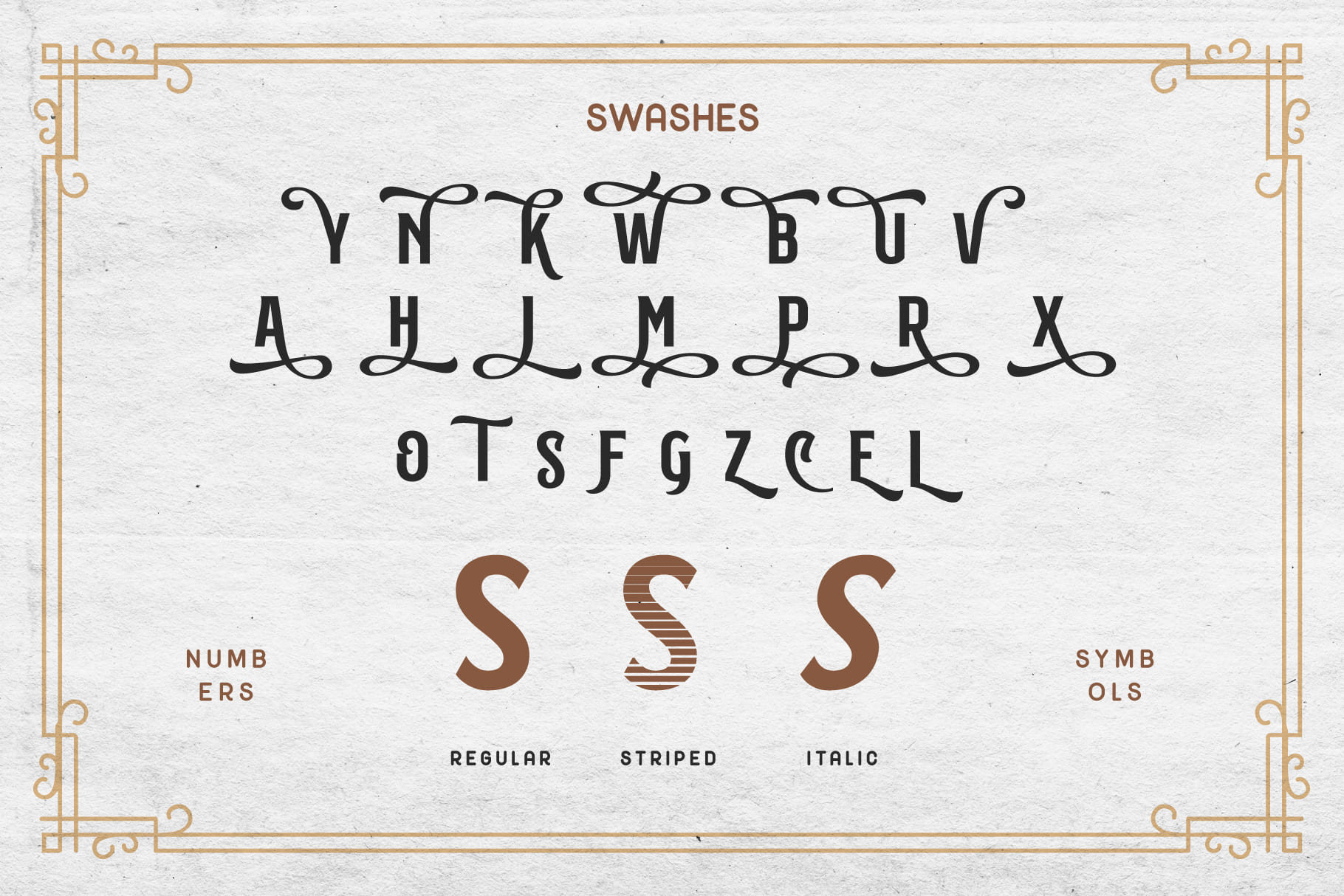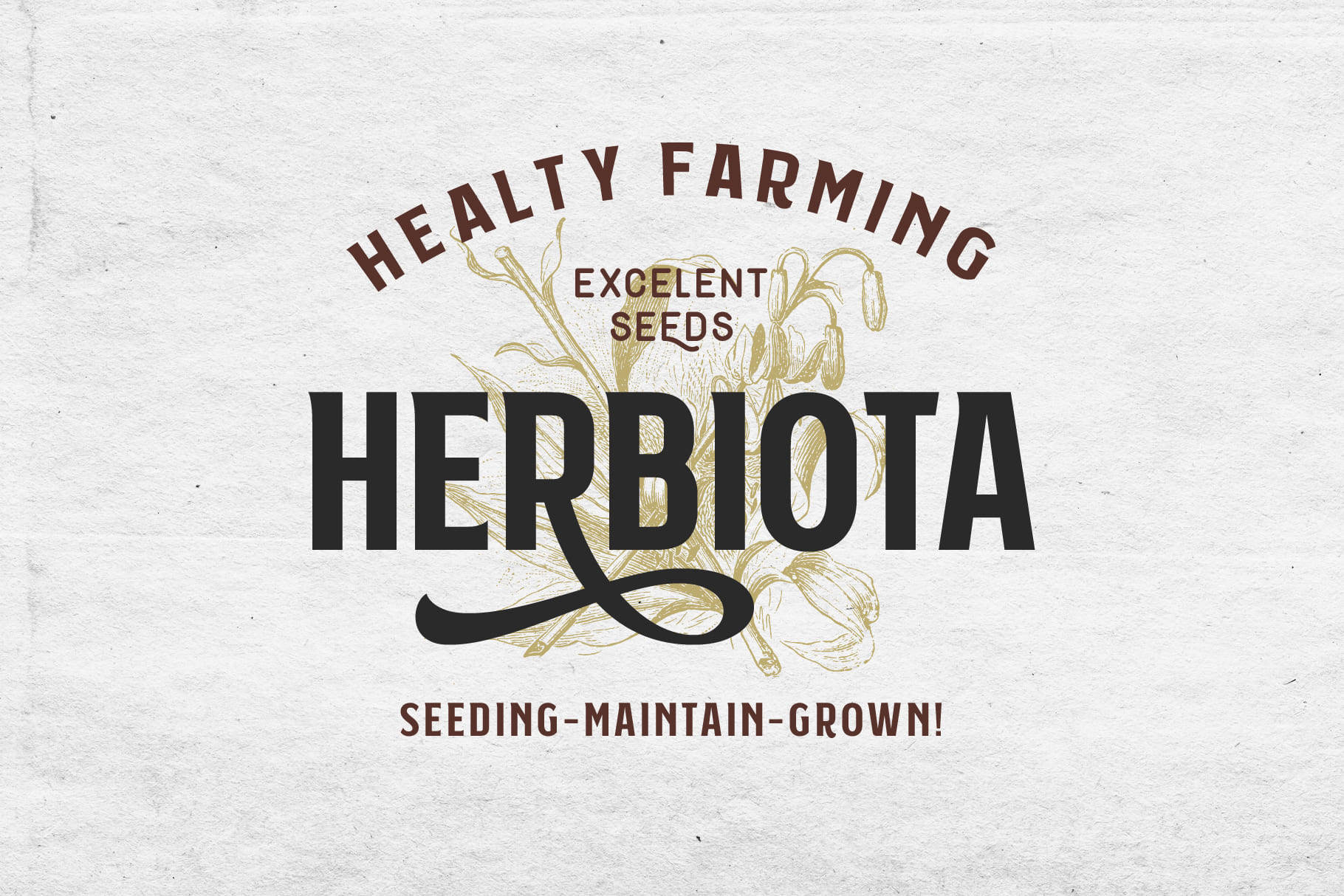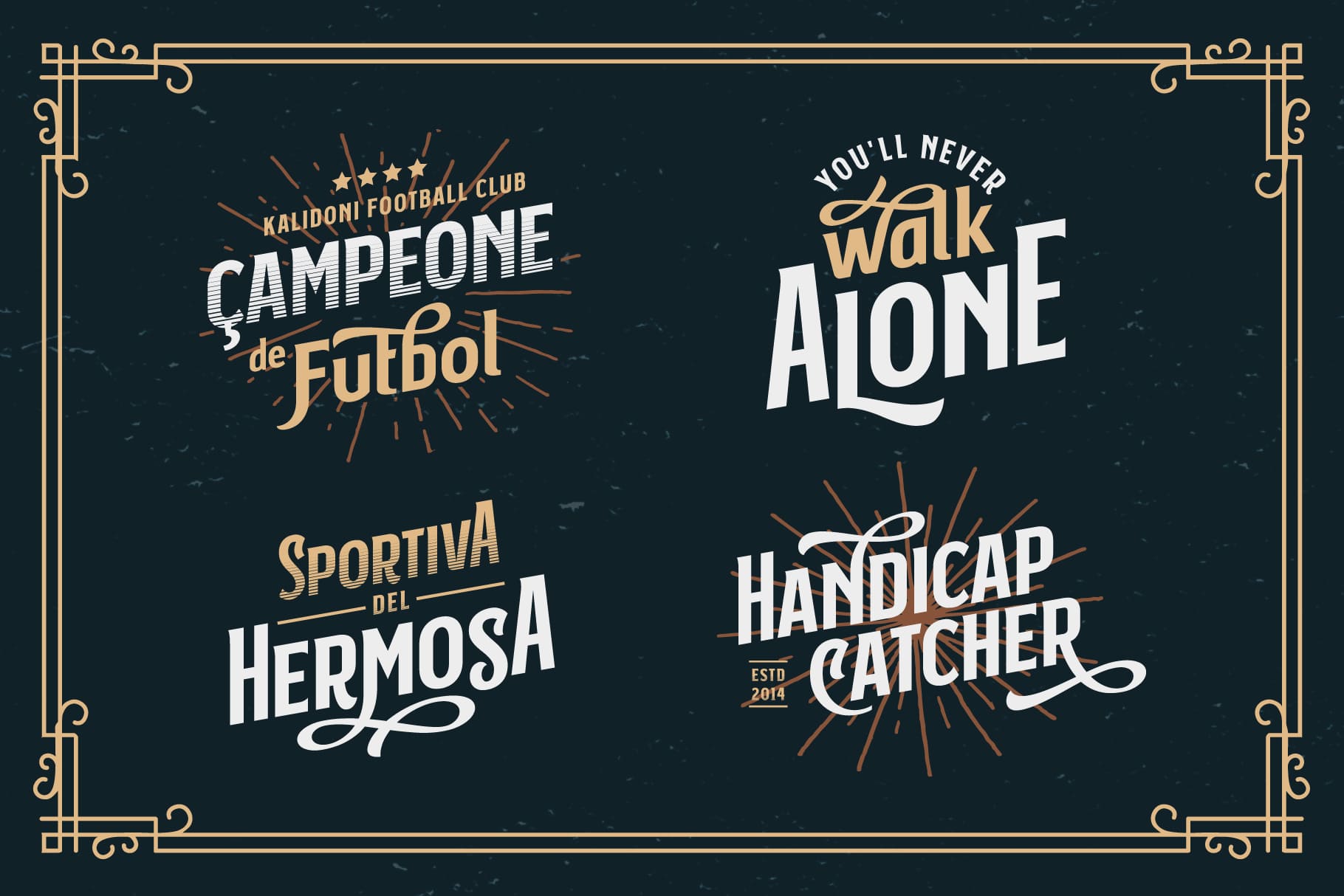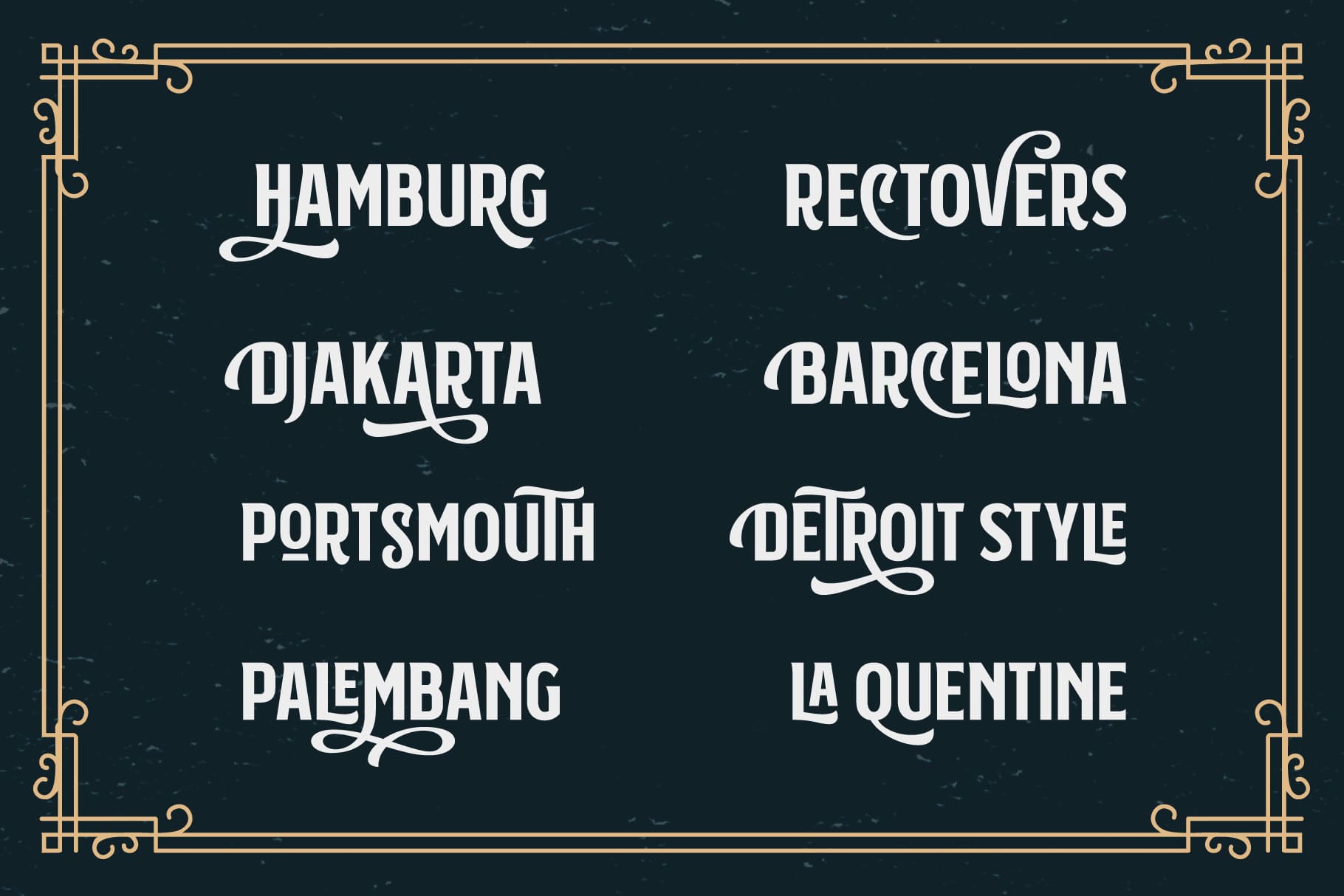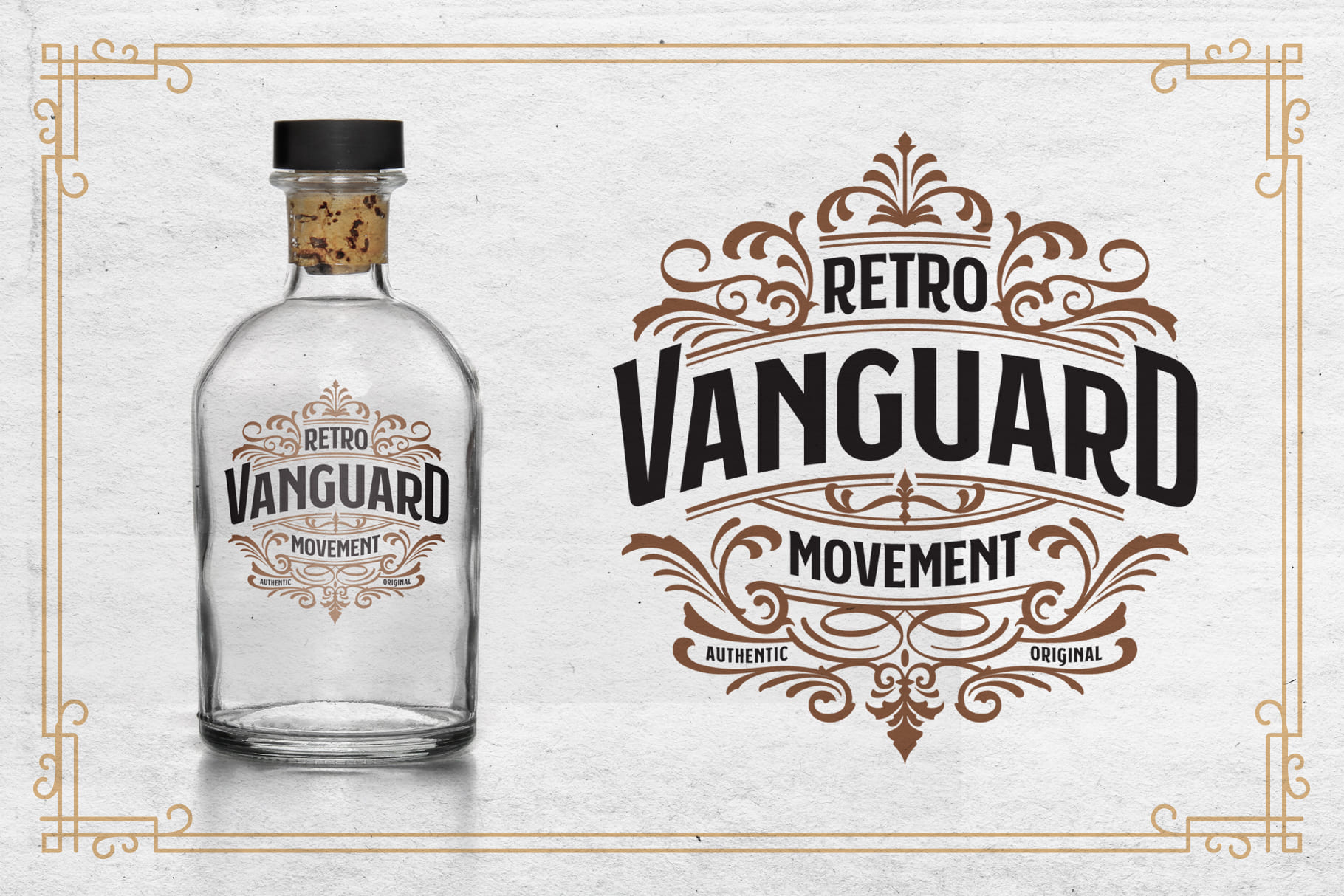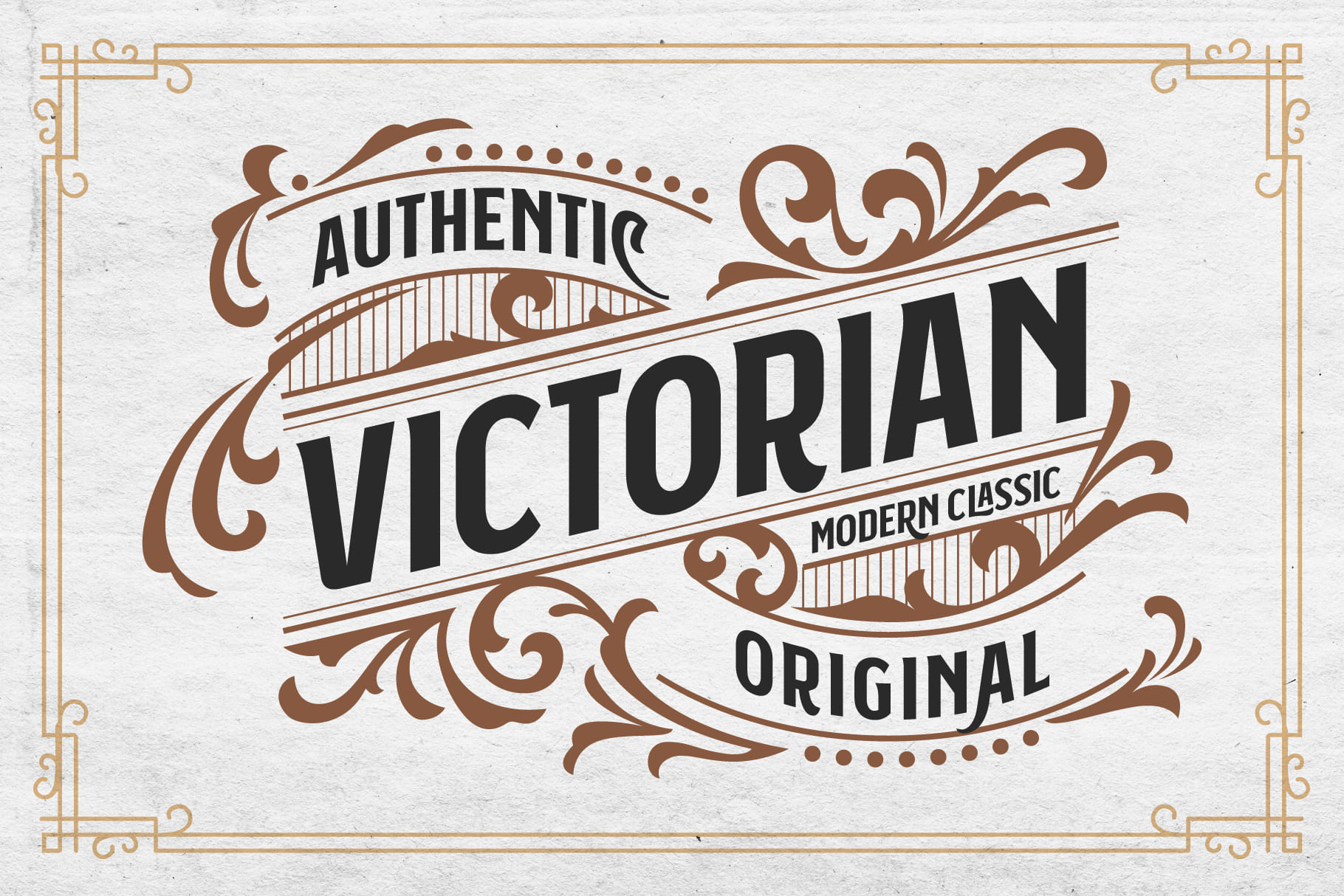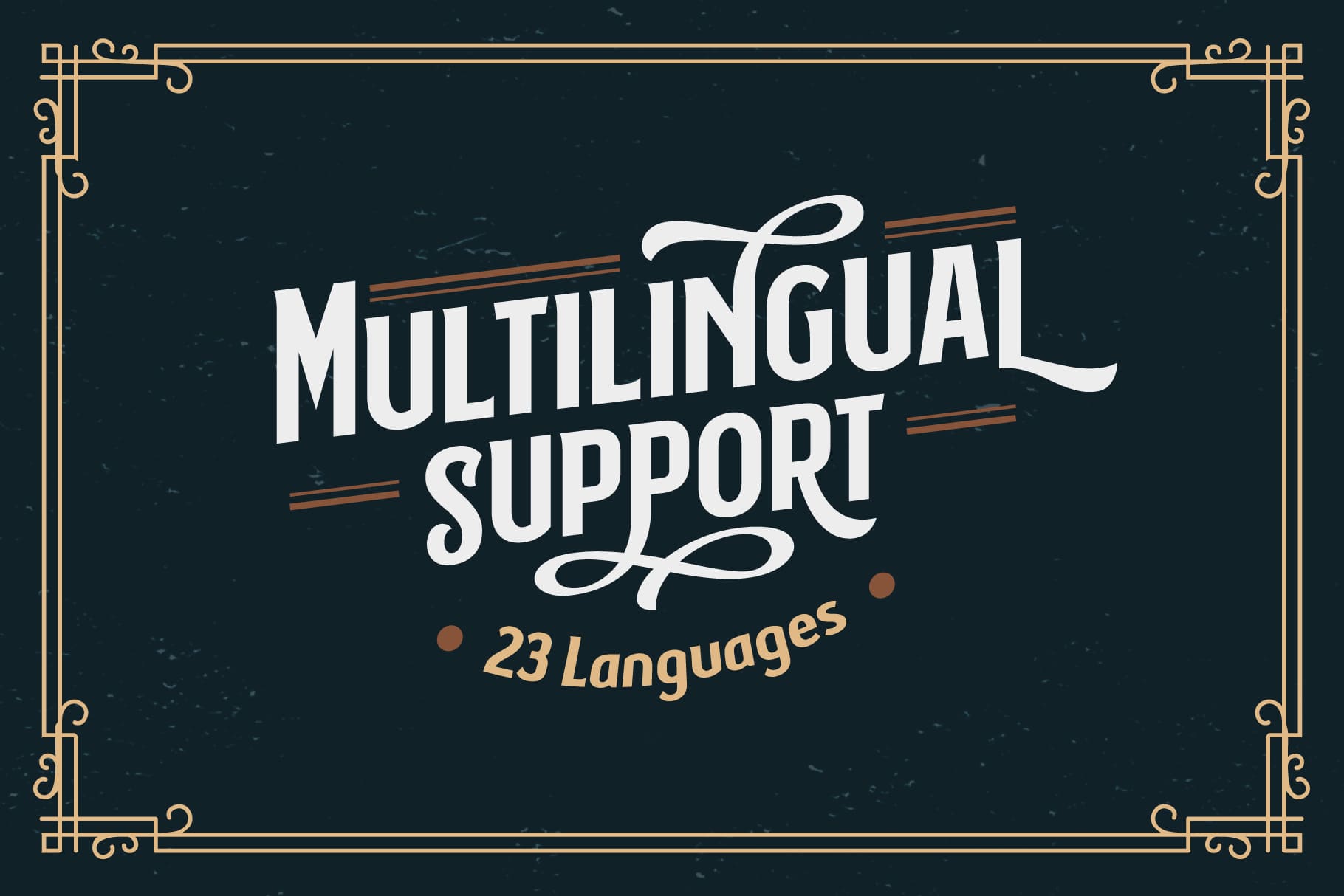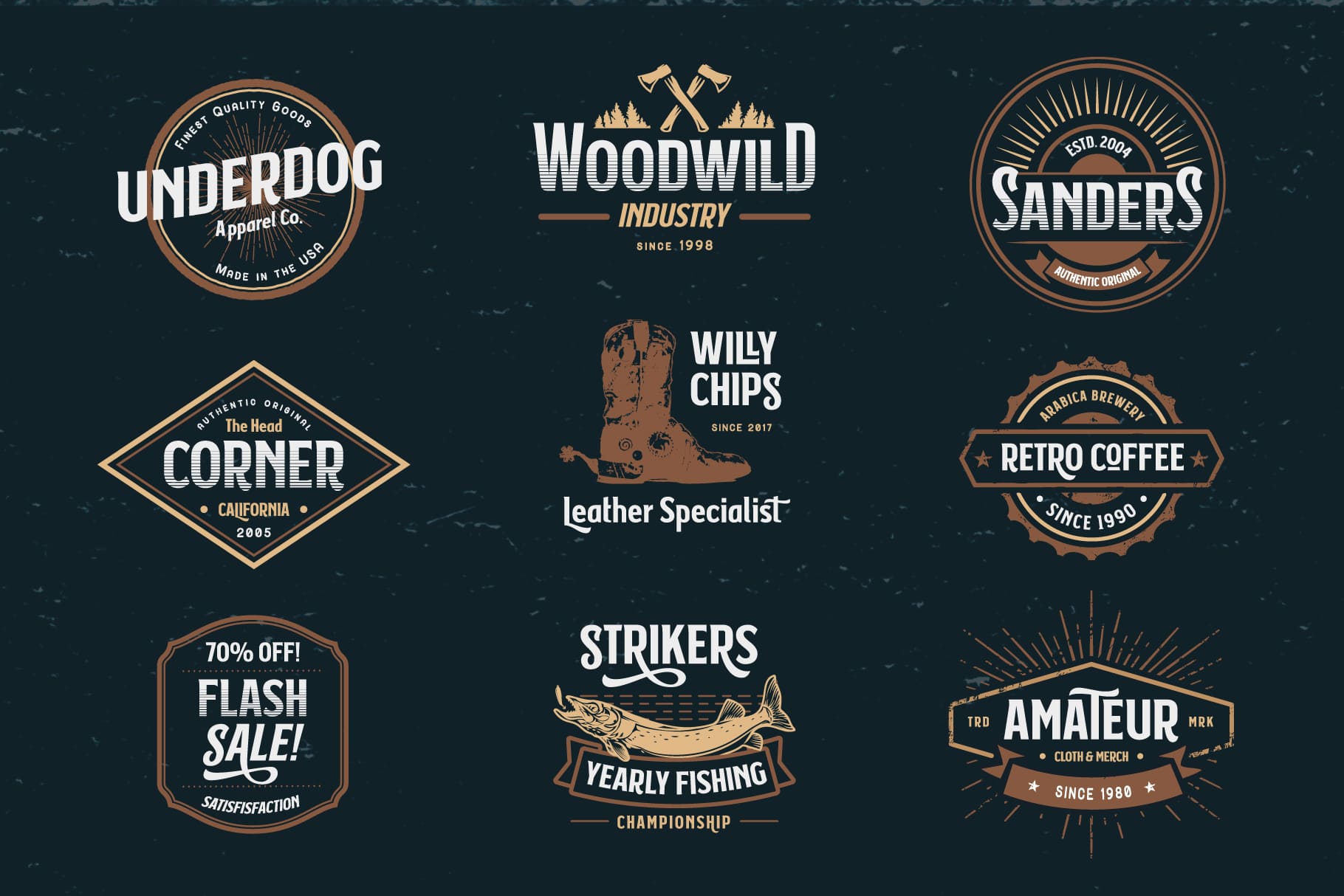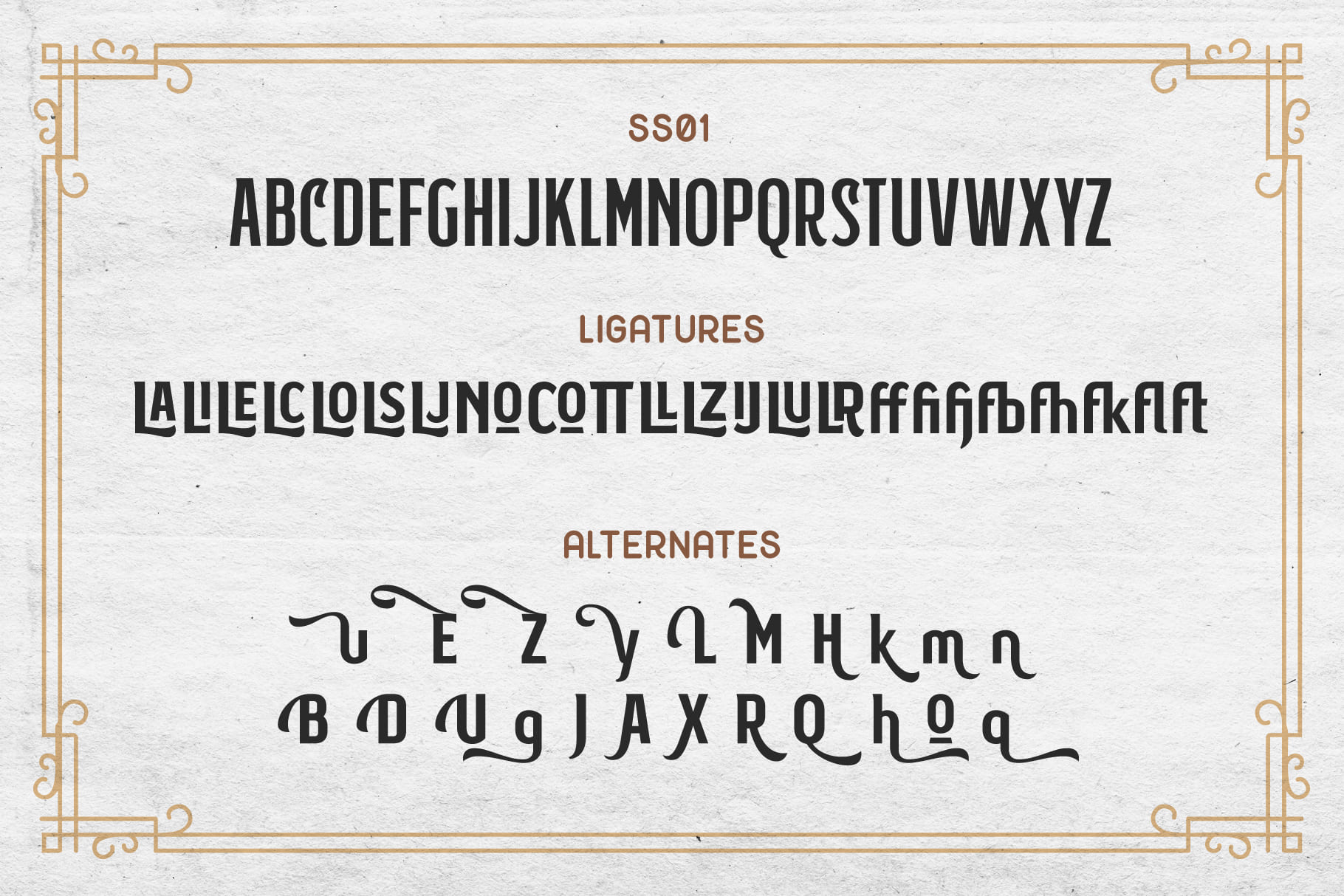
Subversia Family (3 fonts)
From Arterfak Project
Suitable for shirt design, logos, signage, branding, magazine text and more.
Includes all-caps characters, stylistic alternates and swashes.
400+ glyphs supported by 23 languages.